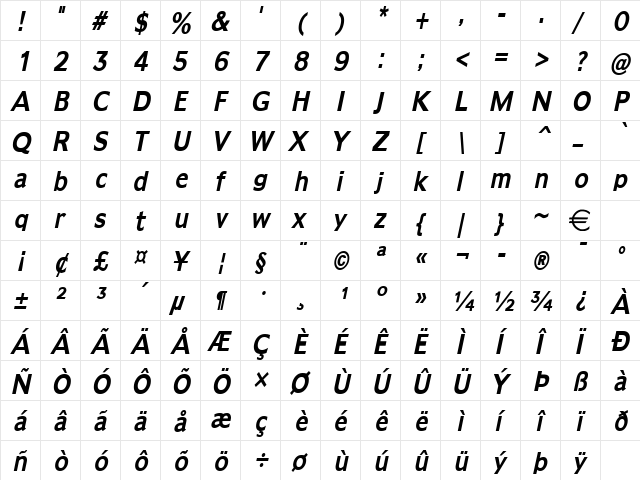
AdamsCondensed BoldItalic Font Preview
Design Context for AdamsCondensed Typeface
AdamsCondensed is a composed and adaptable typeface that performs quietly and consistently across a wide range of design contexts. The slanted form adds forward momentum and visual energy. Its bold stroke weight gives it real presence on the page. Its narrow stance lets it pack a punch even in space-constrained designs.
Pro Tip: Try AdamsCondensed for annotation and caption copy alongside an upright companion — the contrast in angle creates a dynamic but ordered typographic system.